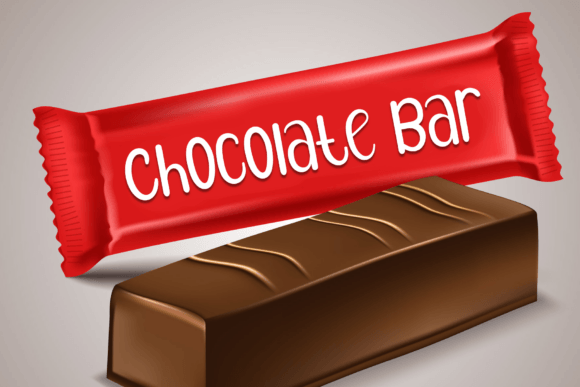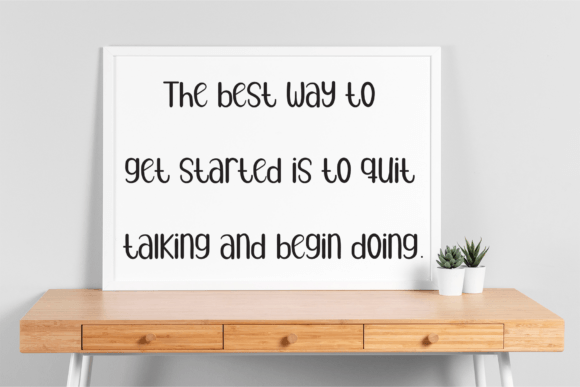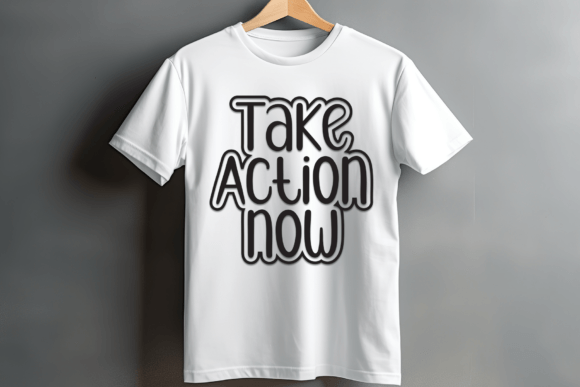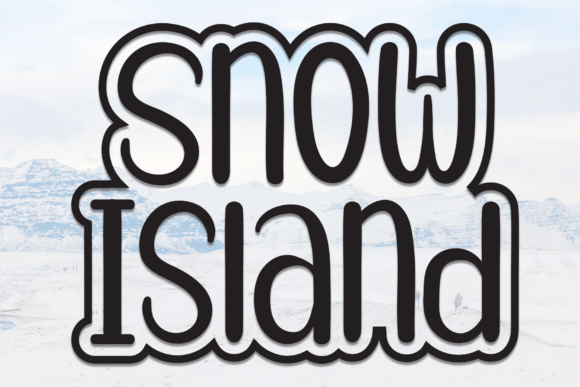
Introduction to Snow Island Font
Introducing a charming handwritten display font that exudes a blend of sweetness and friendliness.
With its delightful and playful aesthetics, this font shines when used for personalizing wedding invitations, decorating cards or augmenting any design endeavor that yearns for a sprinkling of fun Imbue your creative projects with a lighthearted touch and let this cutesy font make your messages more captivating.
Snow Island Font offers exceptional quality and versatility, making it a valuable addition to your design toolkit. Whether you’re creating for personal projects or commercial use, Snow Island Font delivers professional results.